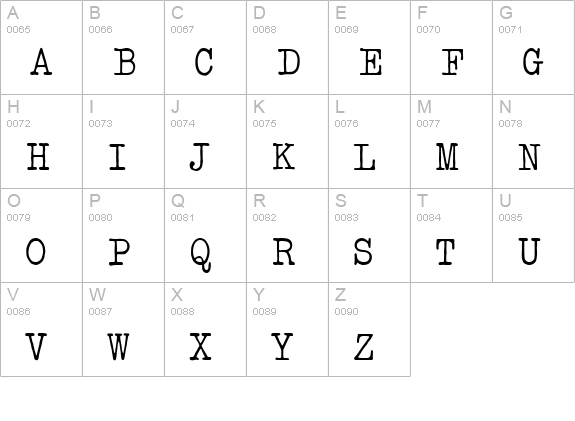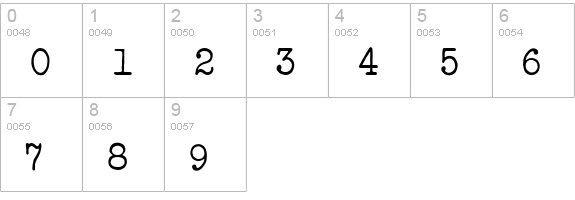
Bulletin Typewriter MN is a classic and versatile monospaced font that exudes elegance and simplicity. With its clean lines and timeless appeal, this font is perfect for a wide range of design projects, from vintage-inspired posters to modern websites. Its distinctive typewriter-style characters bring a sense of nostalgia and authenticity to any design. What sets Bulletin Typewriter MN apart is not only its aesthetic appeal, but also its versatility. Whether you're looking to create a retro look or a clean and modern design, this font can adapt to suit your needs. Its bold and robust characters make a bold statement, while its simplicity and clarity ensure readability in any context. Best of all, Bulletin Typewriter MN is available for free to download at FontsMarket.com. This means that you can enjoy the timeless charm and versatility of this font without any cost. So why wait? Download Bulletin Typewriter MN today and add a touch of vintage flair to your designs.